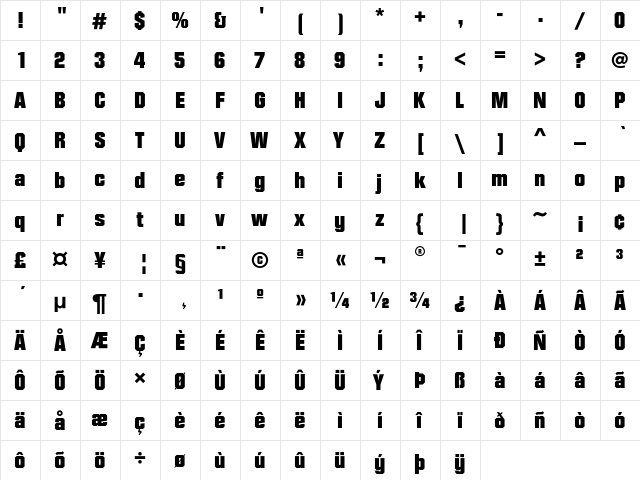
DiamanteEF ExtraBold
Design Context for DiamanteEF Typeface
DiamanteEF takes a measured approach to typography — its balanced proportions and neutral character make it a reliable workhorse for both digital and print work. Its bold stroke weight gives it real presence on the page.